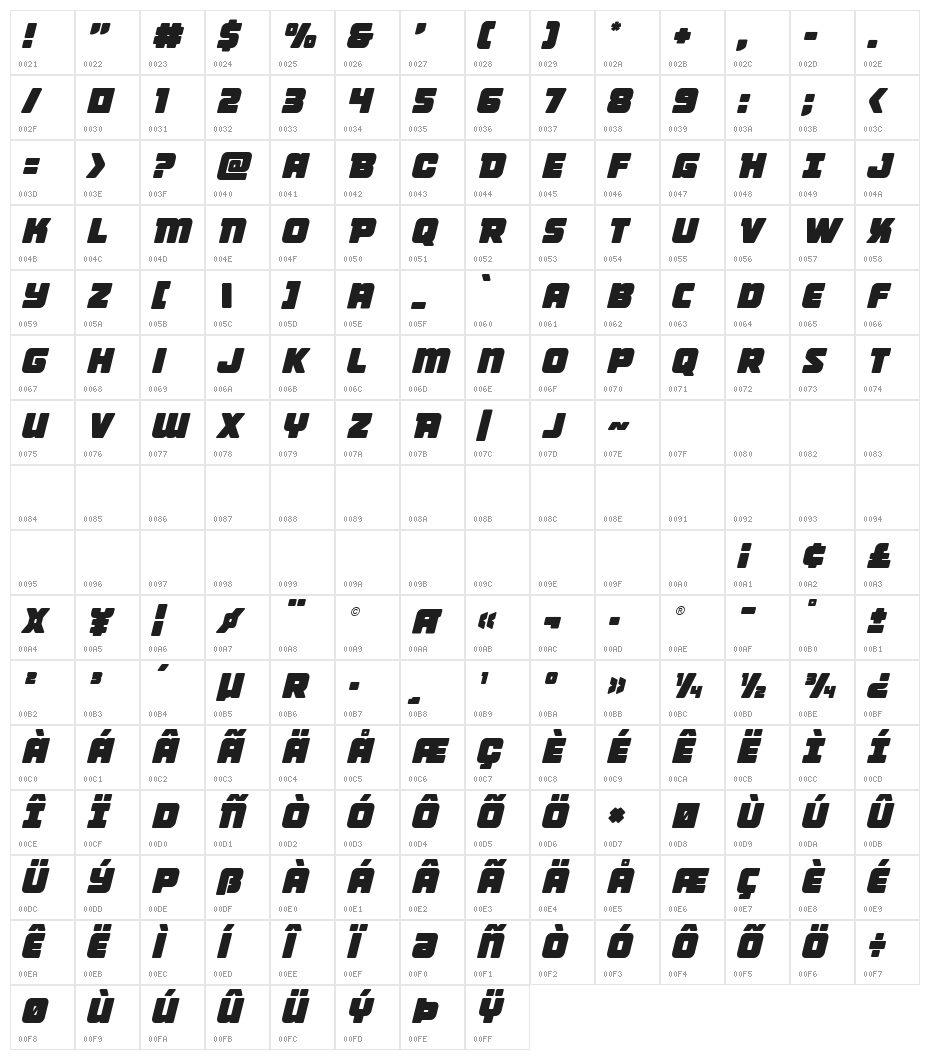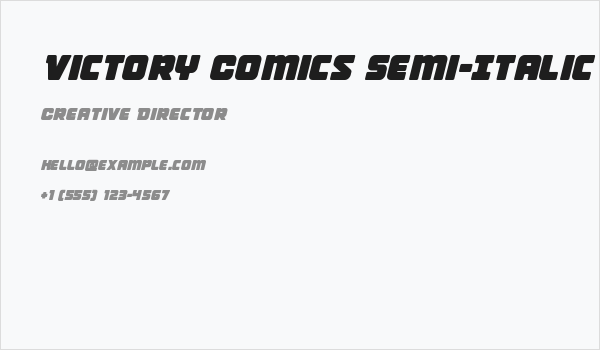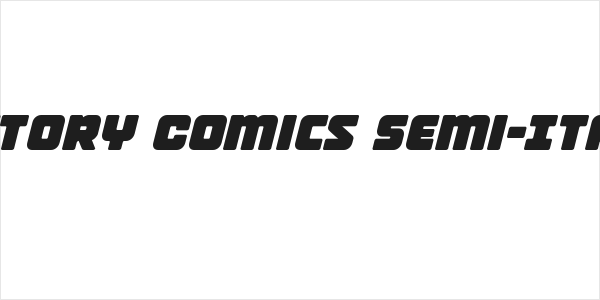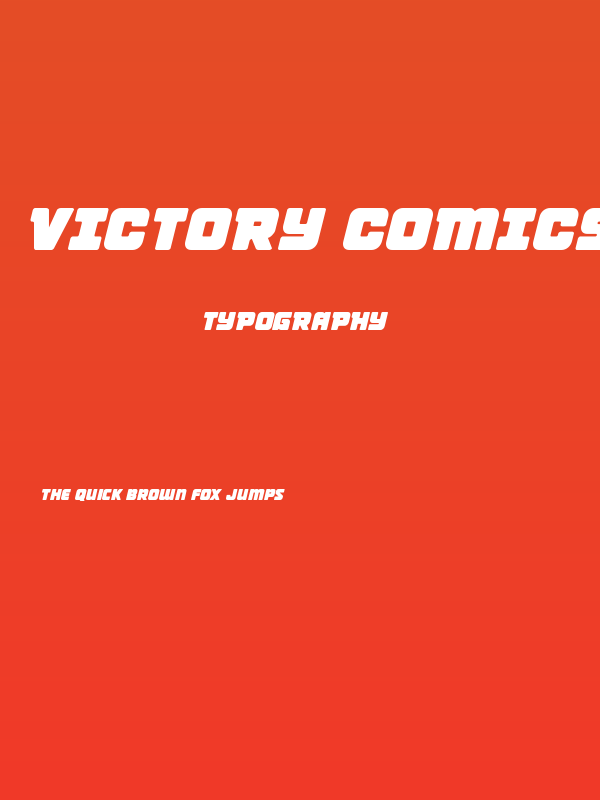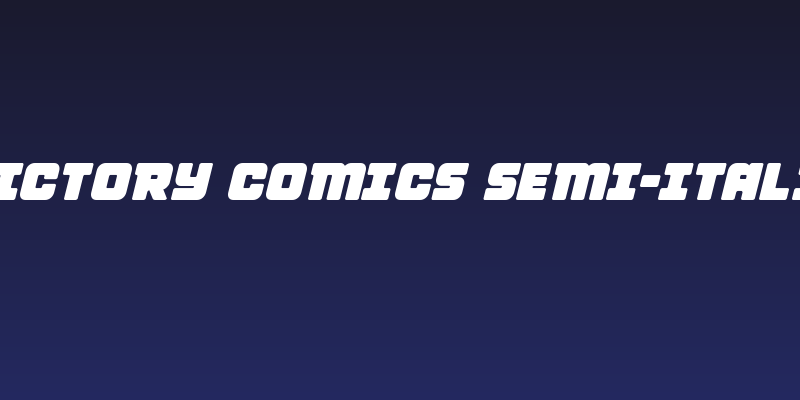
Victory Comics Semi-Italic Font
Victory Comics Semi-Italic Description
This font features a bold and dynamic style with a semi-italic slant, giving it a sense of motion and energy. The characters are thick and robust, with a slightly condensed width that enhances its impactful appearance. The uppercase and lowercase letters maintain a consistent weight, providing a uniform look across the text. The numbers and special characters are designed to match the boldness of the letters, ensuring a cohesive visual experience. The font's strong presence makes it ideal for attention-grabbing headlines or titles. Its comic-inspired design adds a playful and adventurous touch, suitable for creative projects that require a lively and engaging typeface.
| Proposed Projects | Perfect for comic books, posters, video game titles, and branding that requires a bold and energetic look. |